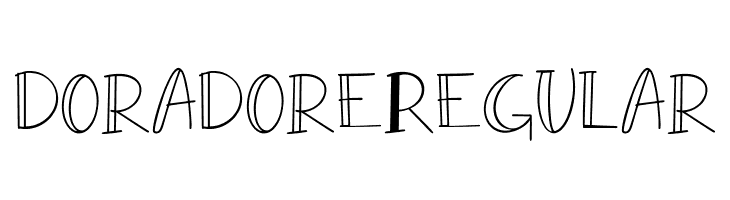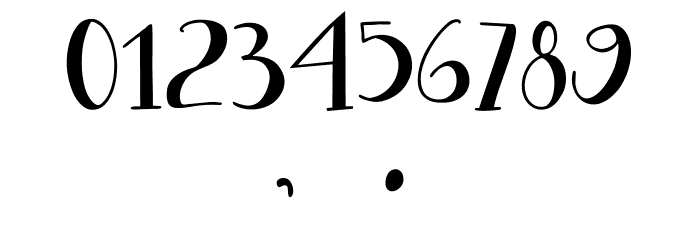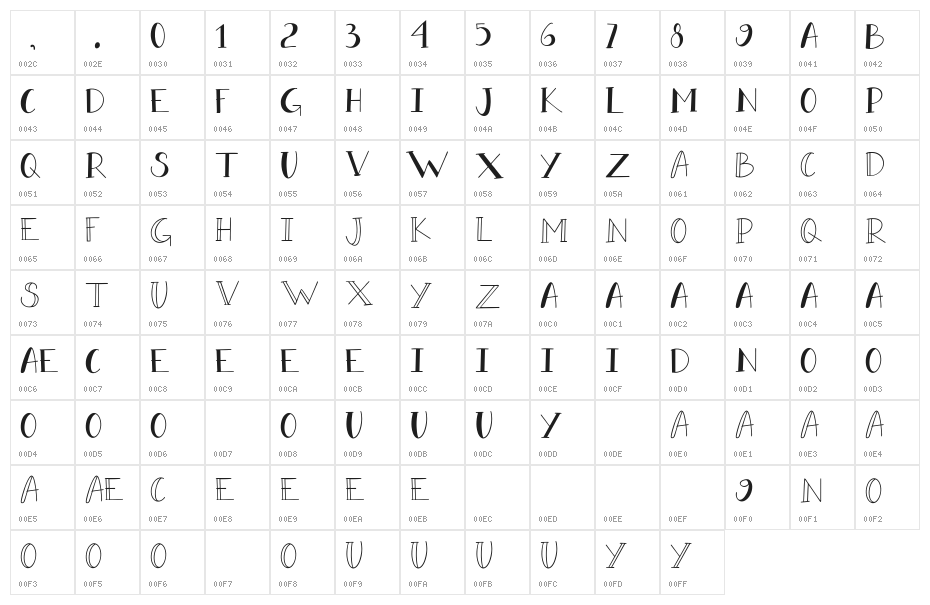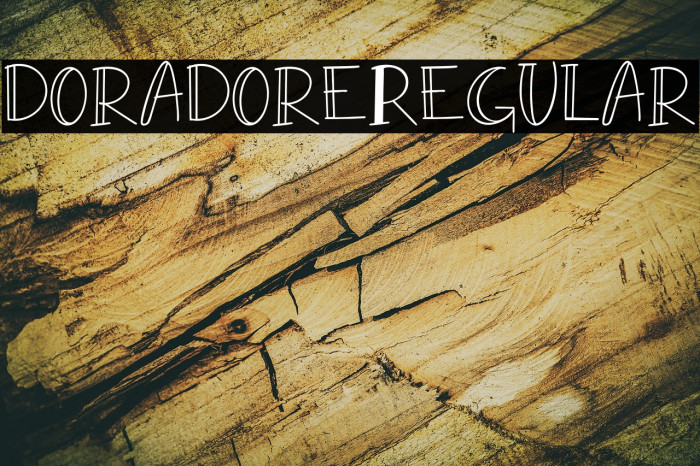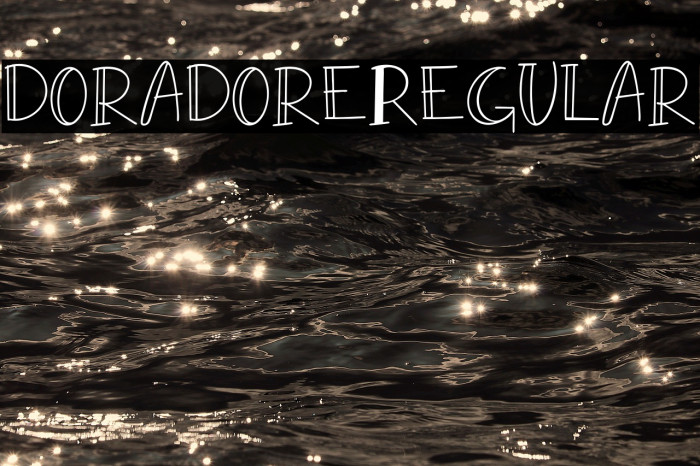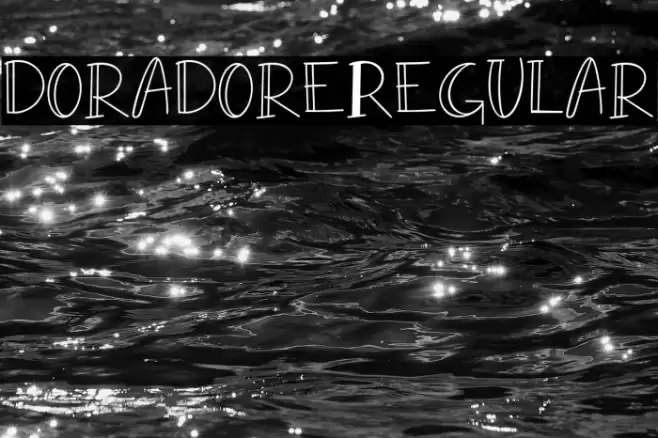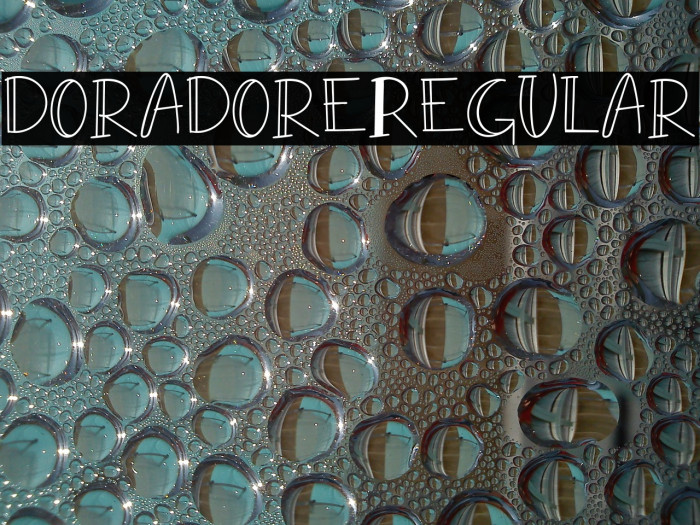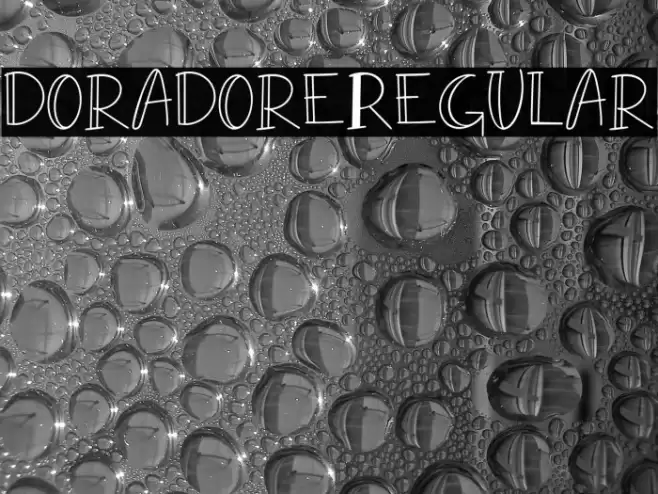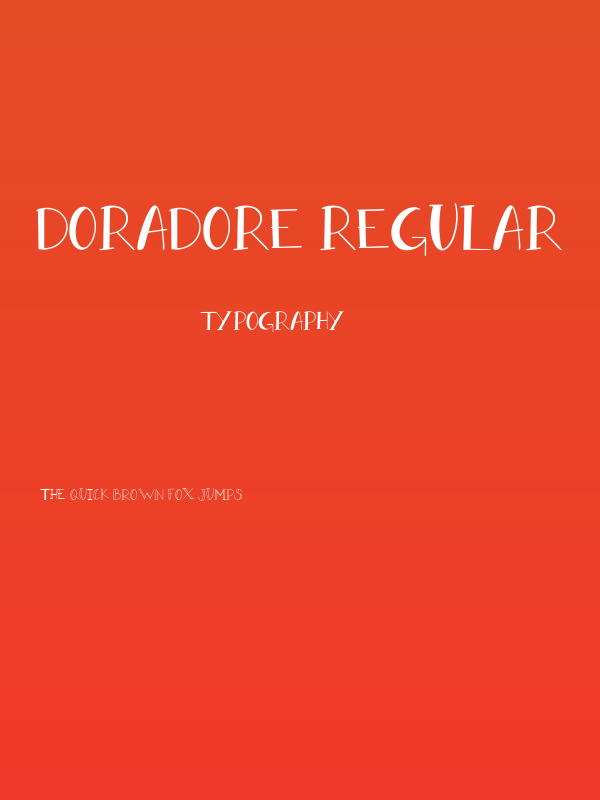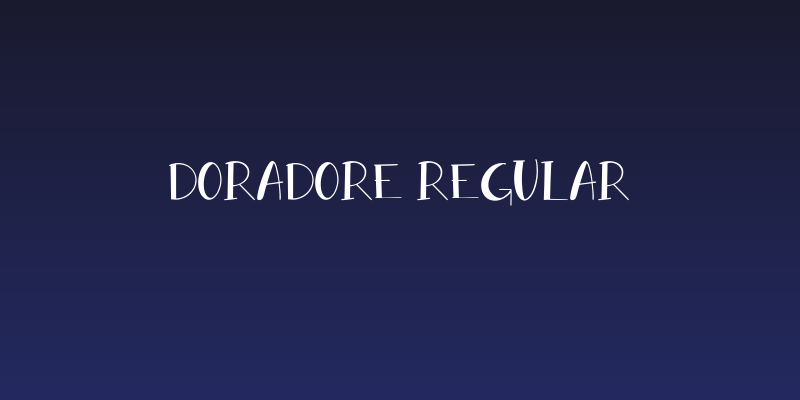
doradore-Regular Font
doradore-Regular Description
This font features a playful and whimsical design, characterized by its irregular and dynamic strokes. The uppercase letters exhibit a mix of thick and thin lines, creating a lively and energetic appearance. The lowercase letters maintain this playful style, with some characters having unique and unexpected curves. The numbers are bold and distinctive, adding to the font's overall charm. This font's unique style makes it stand out, offering a creative and artistic flair suitable for various design projects.
| Overall Style | Playful and Artistic |
| Proposed Projects | Ideal for children's book covers, playful branding, creative posters, and artistic invitations. |